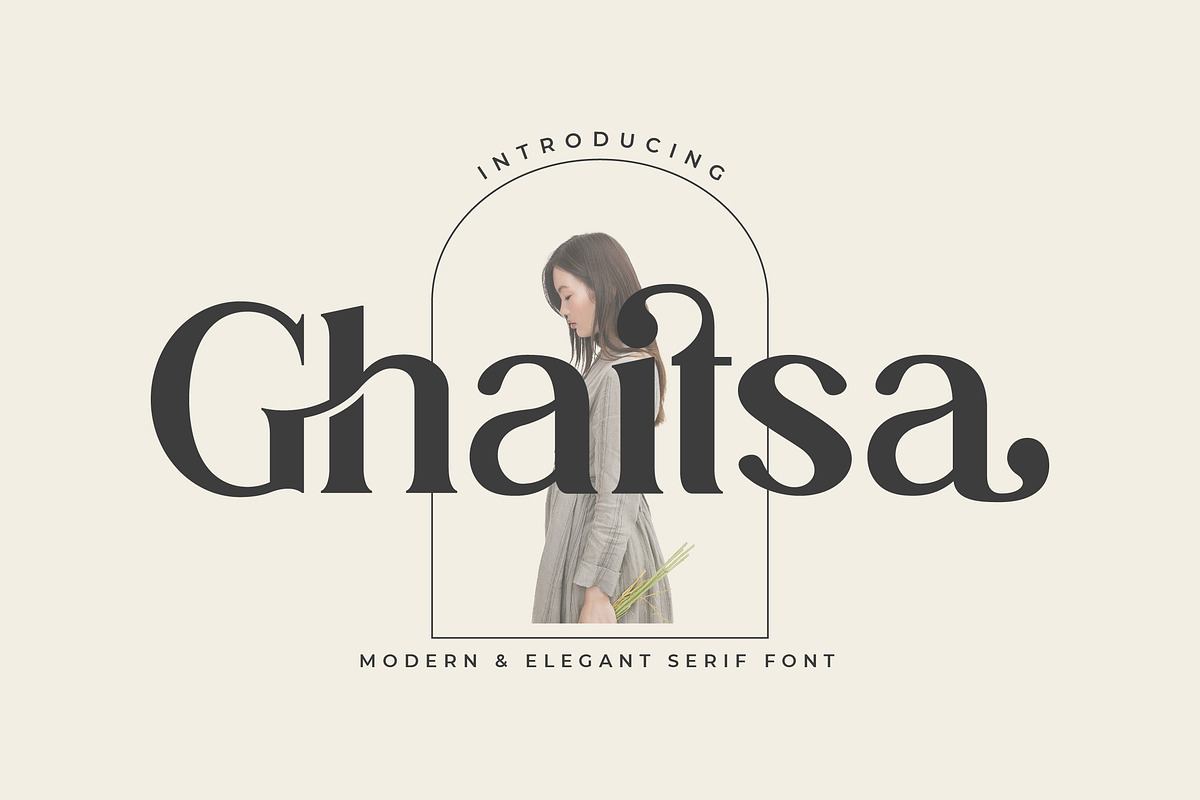
Ghaitsa - Stylish Ligature Font Free Download is an elegant and sophisticated typeface featuring unique ligatures that add a refined and artistic touch to your designs. Perfect for high-end branding, wedding invitations, logos, and creative projects, this font brings both elegance and personality to your work. The ligature details create seamless connections between letters, making it ideal for projects that need a smooth, handcrafted look. Whether you're designing for a luxury brand, creating personalized gifts, or working on elegant promotional materials, Ghaitsa - Stylish Ligature Font Free Download gives you the opportunity to experiment with its graceful style in personal projects before purchasing a commercial license. Add elegance and style to your designs with this beautifully crafted ligature font.